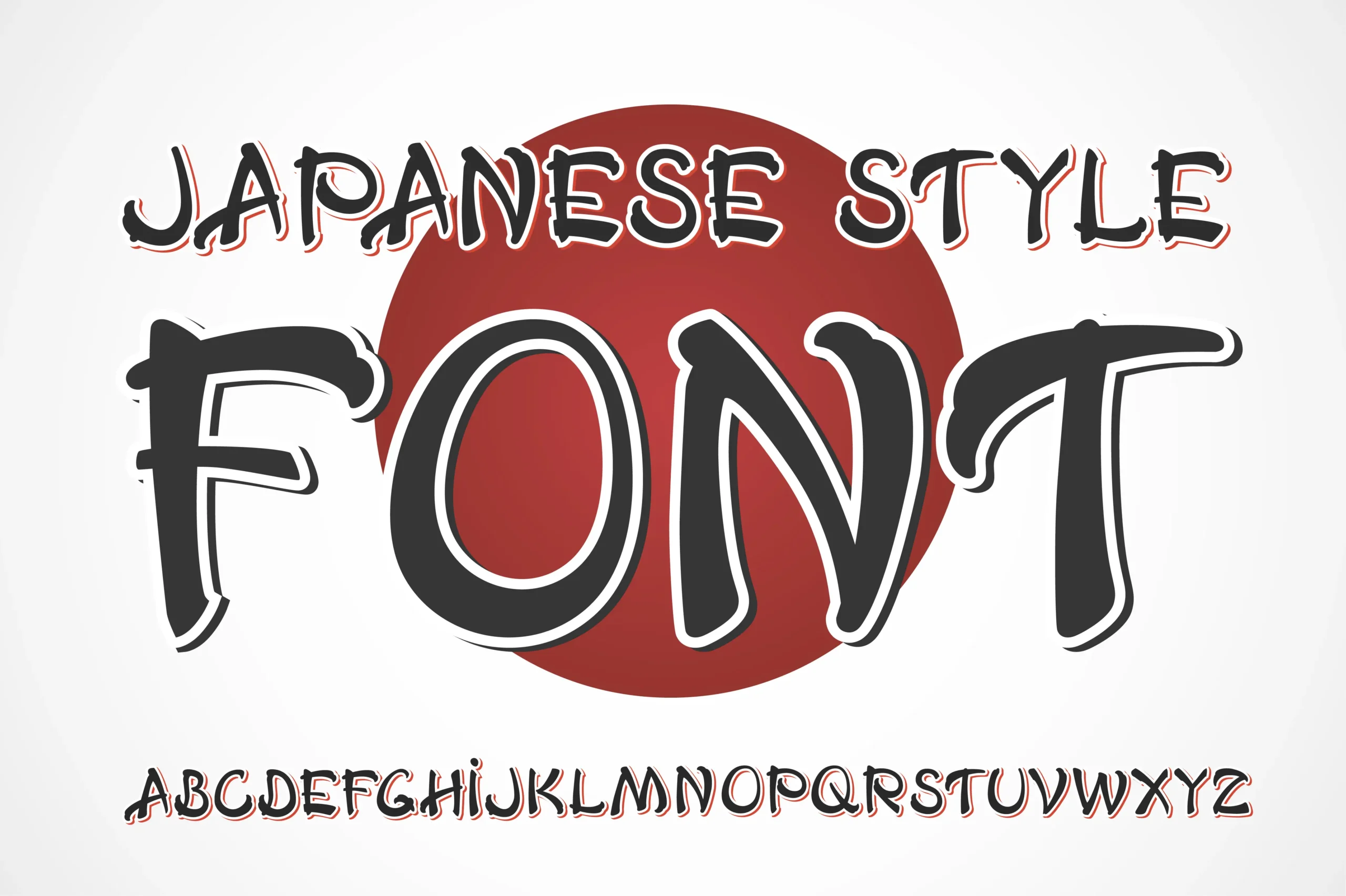
Japanese Otf Vintage Label Font
Introducing the Japanese Otf Vintage Label Font, a beautifully crafted typeface that captures the essence of traditional Japanese design. This font is perfect for creating authentic vintage labels, branding, and artistic projects that require a touch of elegance and nostalgia.
• Stylish vintage design
• Multiple weights for versatile use
• Supports Japanese characters
Ideal for branding, logos, packaging, and print materials, the Japanese Otf Vintage Label Font adds a unique flair to your designs. Use it to evoke a sense of history and craftsmanship in your projects.